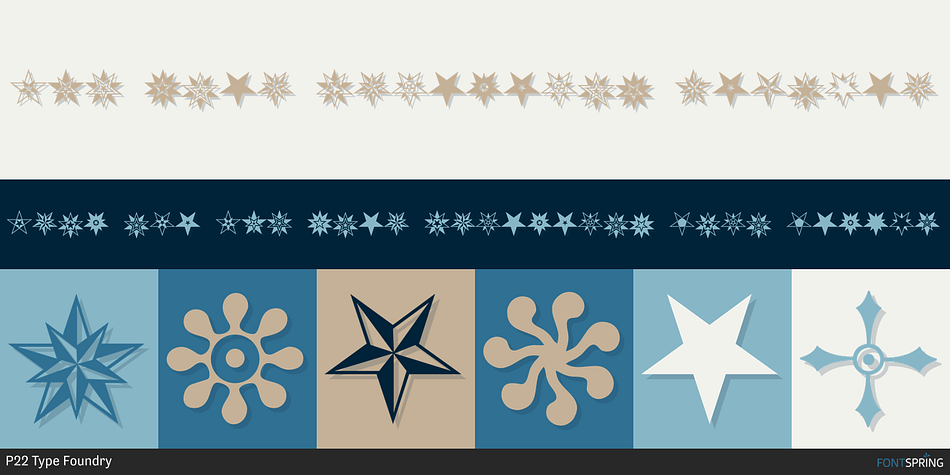
Designed by Richard Kegler, HWT Star Ornaments is a dingbat font published by Hamilton Wood Type.
Star Ornaments are seen as a long standing companion to many wood type poster layouts. Various manufacturers managed to derive many variations of the five pointed star motif and offered them as a ubiquitous ornament option in almost all of their catalogs. Manufacturers such as Wm. H Page, Morgans & Wilcox, Tubbs Mfg. Co. and of course, Hamilton Wood Type each had their own slight variations. This digital font features almost 100 glyphs of mostly stars, but it also features a unique star border that can create boxes just like the modular offerings of the 19th century. The twist on this digital version is the inclusion of additional connection options that become a unique lettering ‘kit’ that can create typography or maze-like connections using a limited set of component parts.